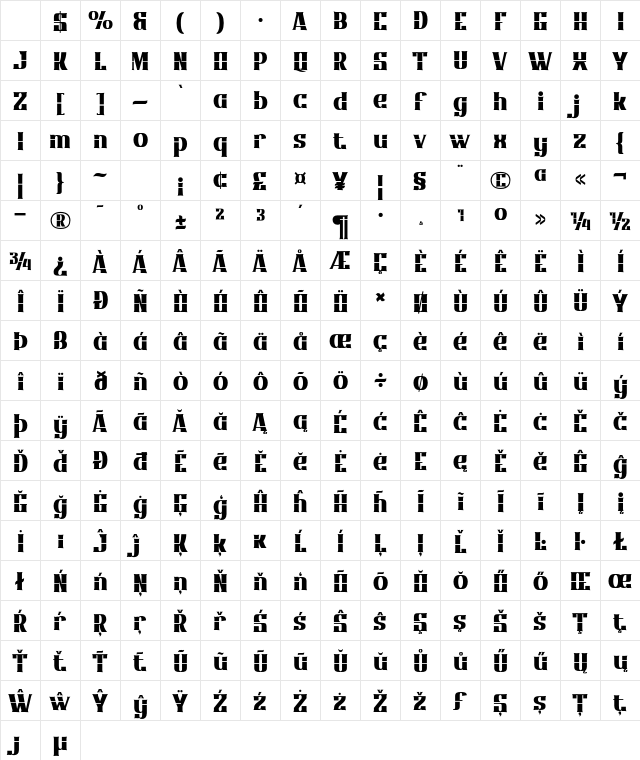
Complete Qonihytrial Regular glyph index. Displaying only characters natively supported by Qonihytrial Regular font.
Qonihytrial is a composed and adaptable typeface that performs quietly and consistently across a wide range of design contexts.